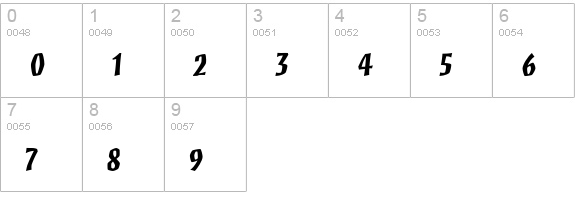
Mezz Std Bold is a strong, high-contrast variant in the Mezz typeface family \xE2\x80\x94 well suited to headlines, attention-grabbing titles, and strong calls-to-action.
Mezz Std Bold is a striking and versatile typeface that exudes confidence and modernity. With its bold weight and clean lines, this font is perfect for making a bold statement in a variety of design projects. Whether you're creating eye-catching headlines or sleek branding materials, Mezz Std Bold is sure to command attention. And the best part? Mezz Std Bold is available for free download at FontsMarket.com. So go ahead and elevate your designs with this impressive font without having to spend a penny. Don't miss out on the opportunity to add Mezz Std Bold to your font collection today!